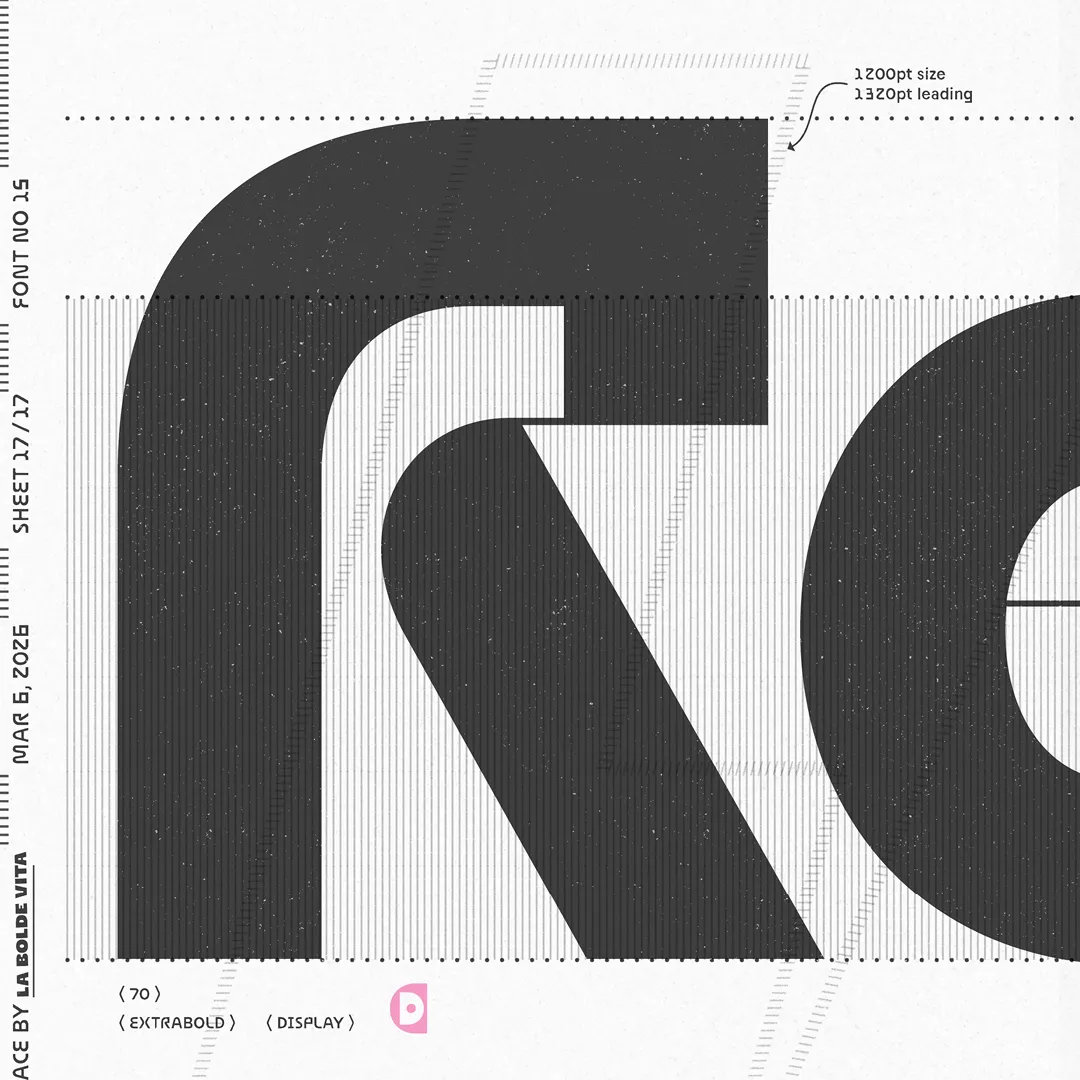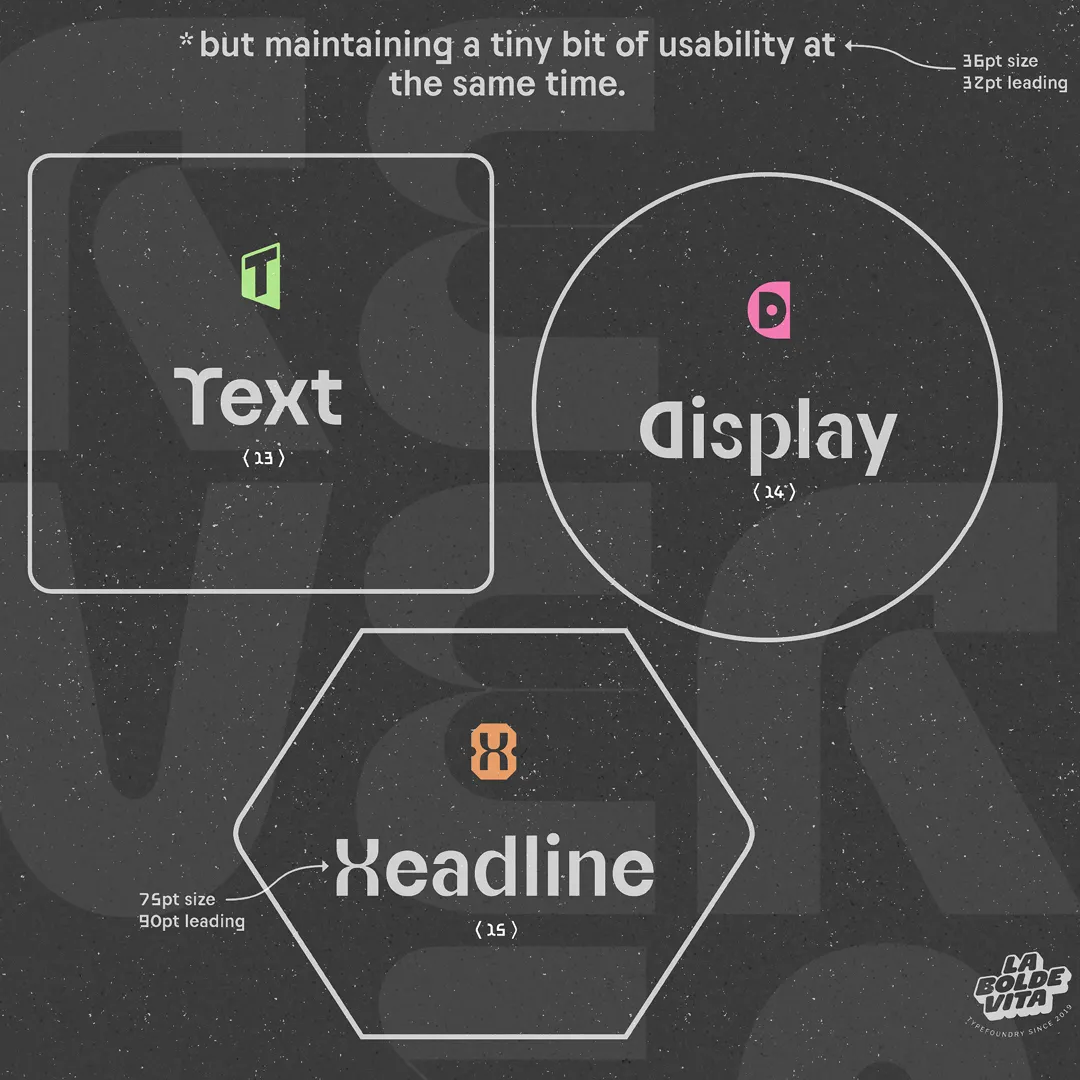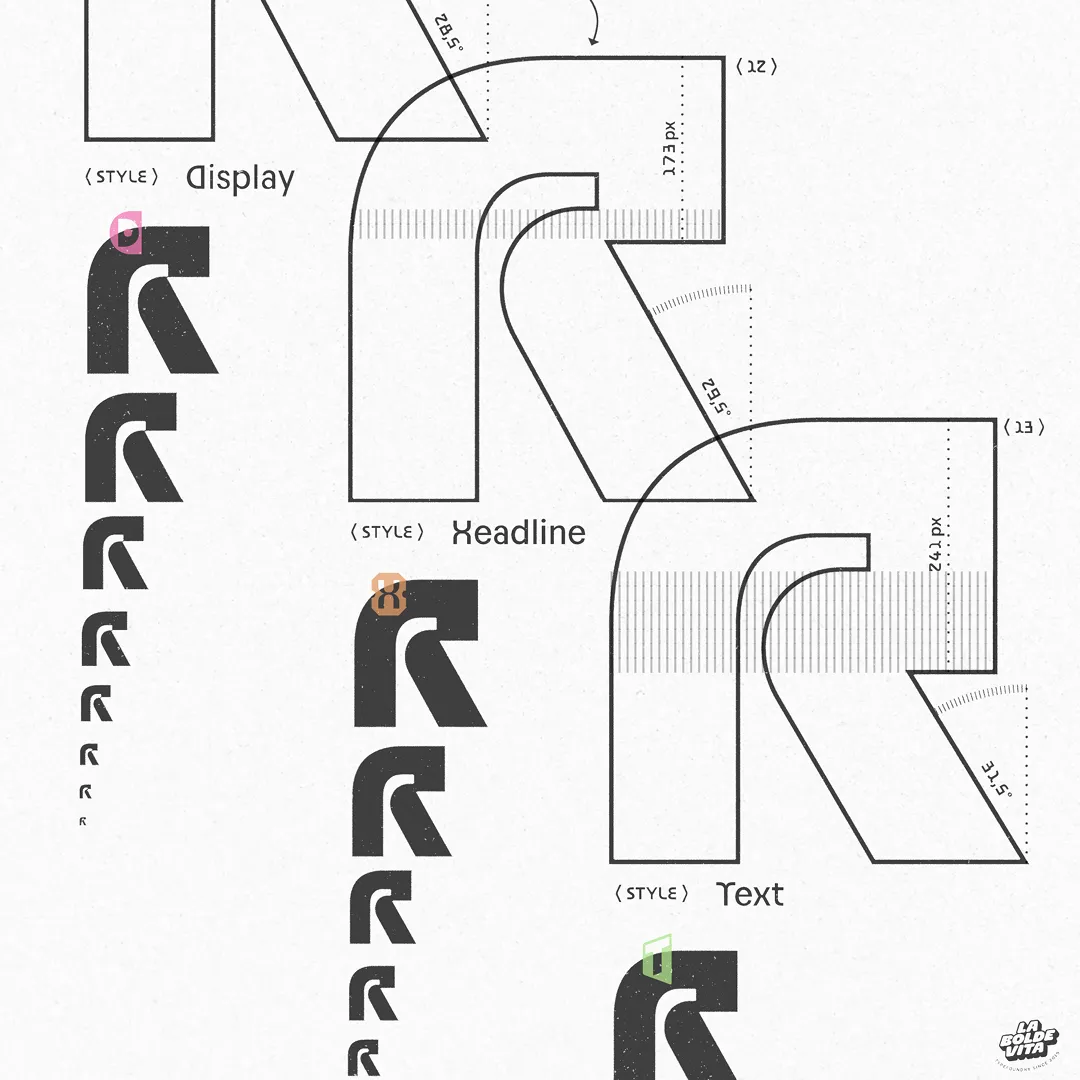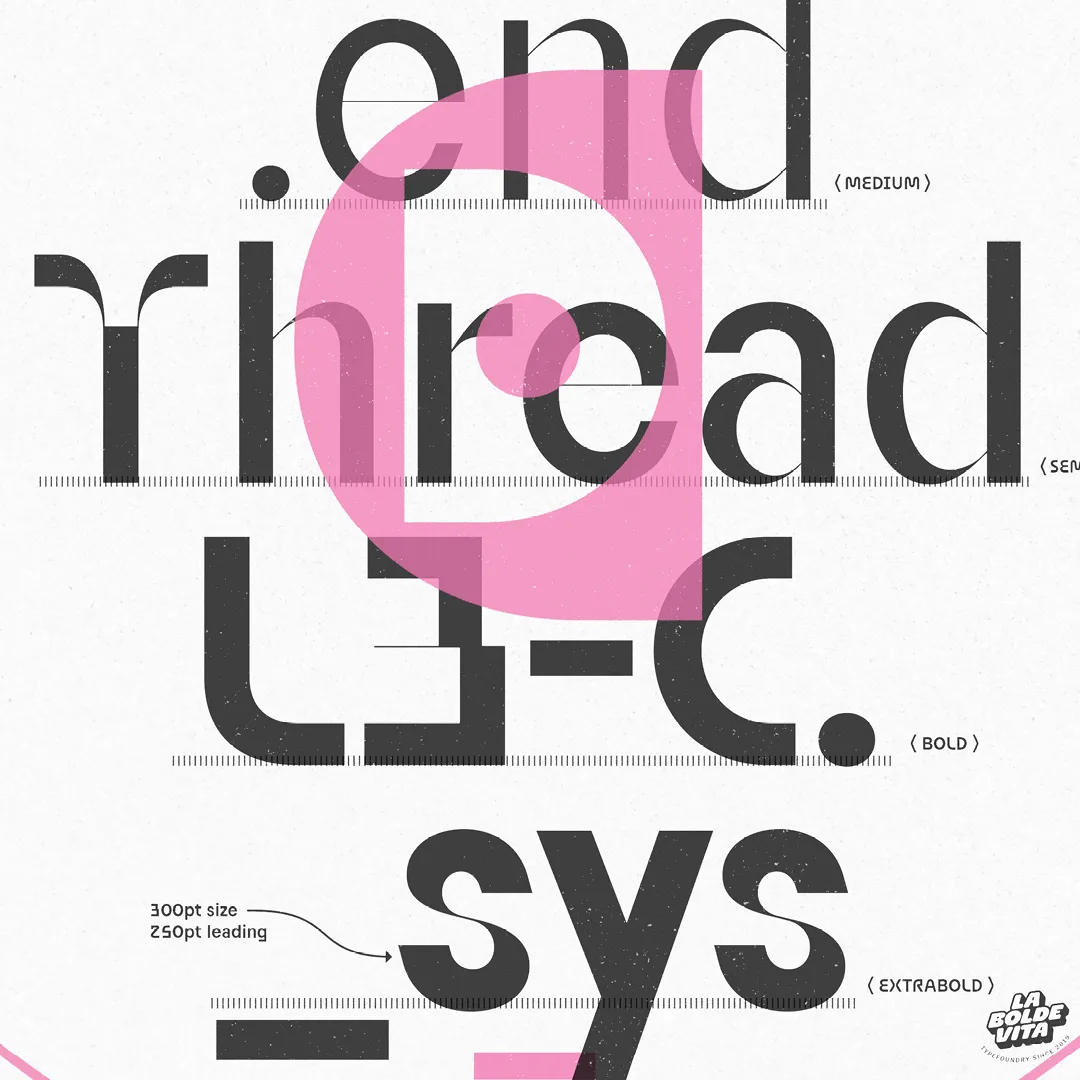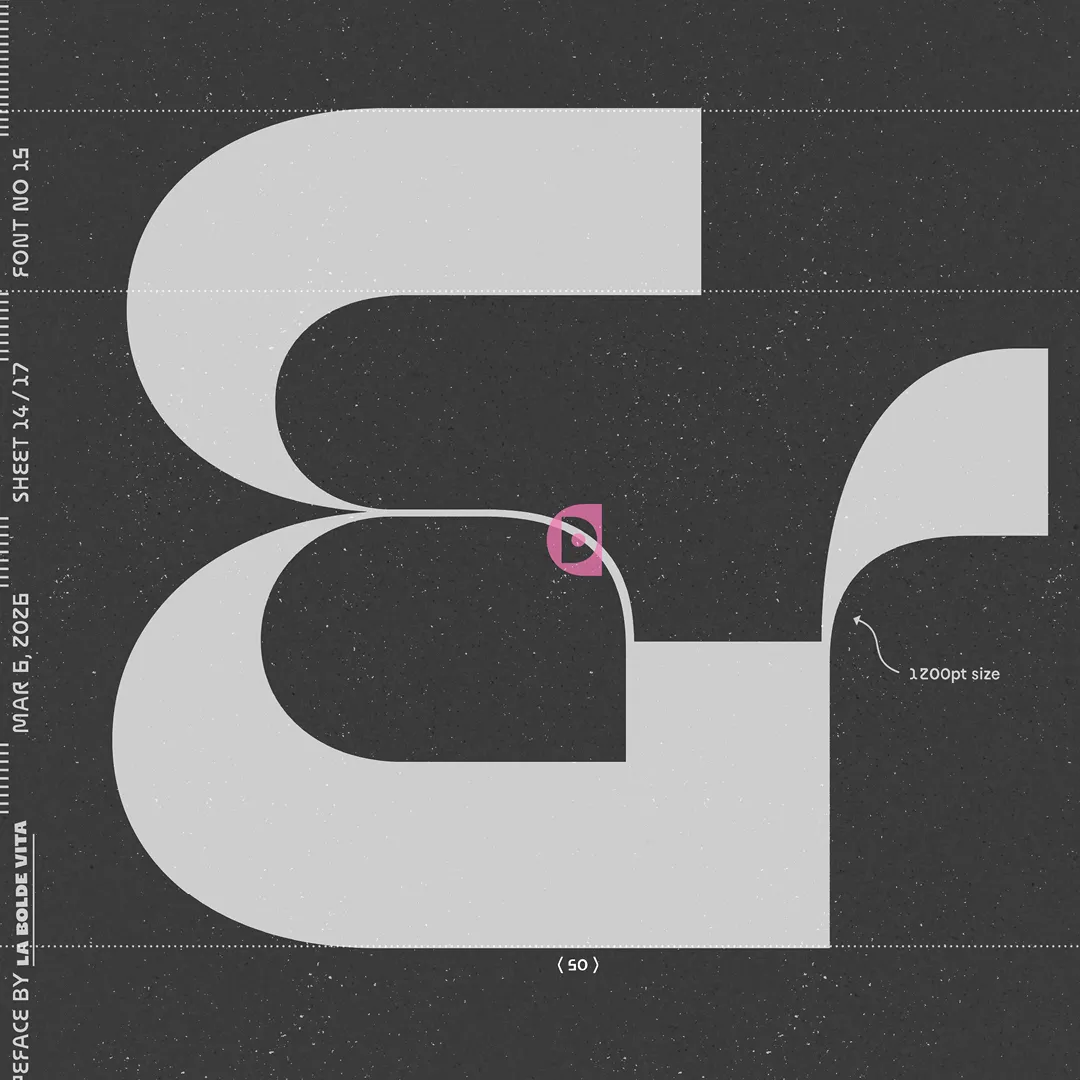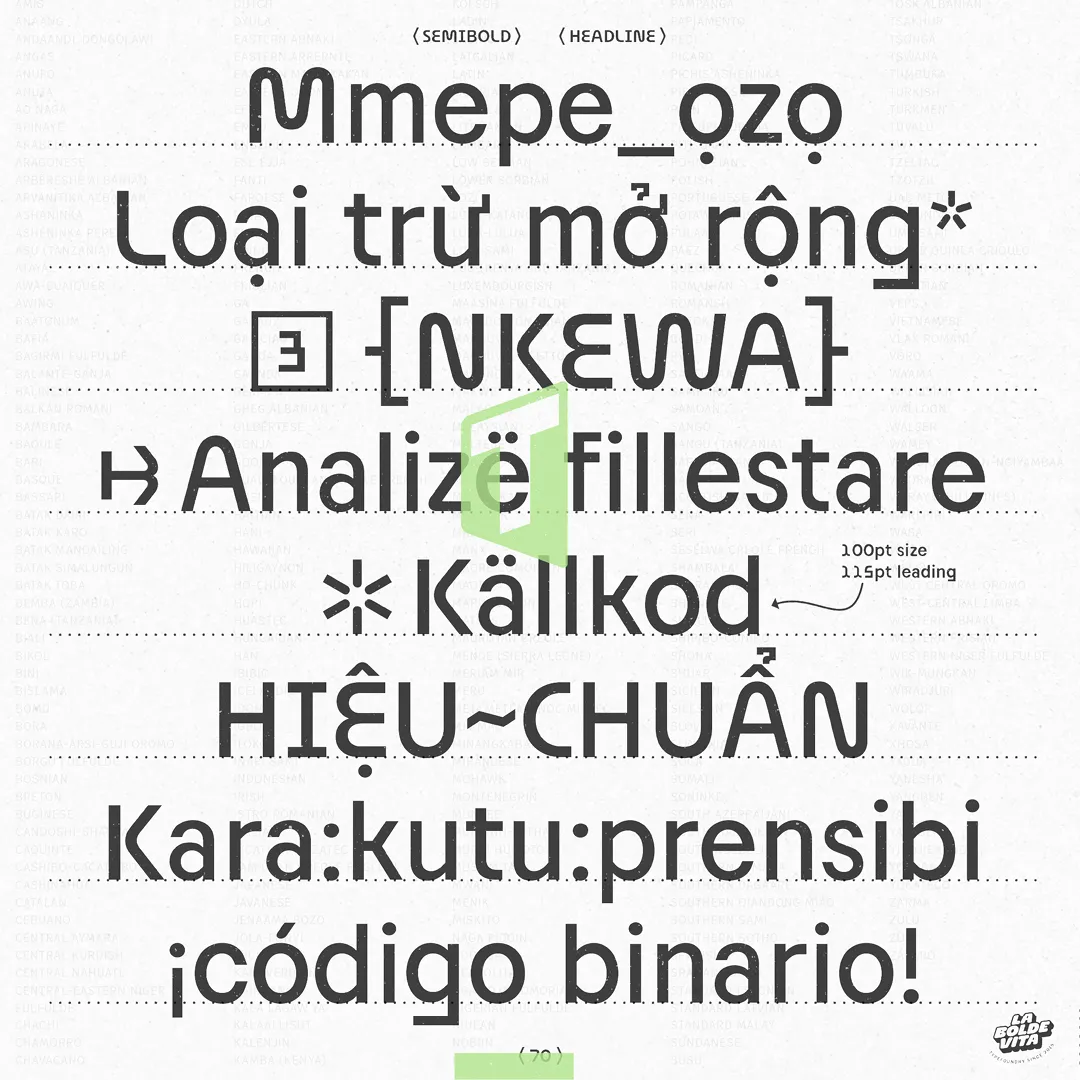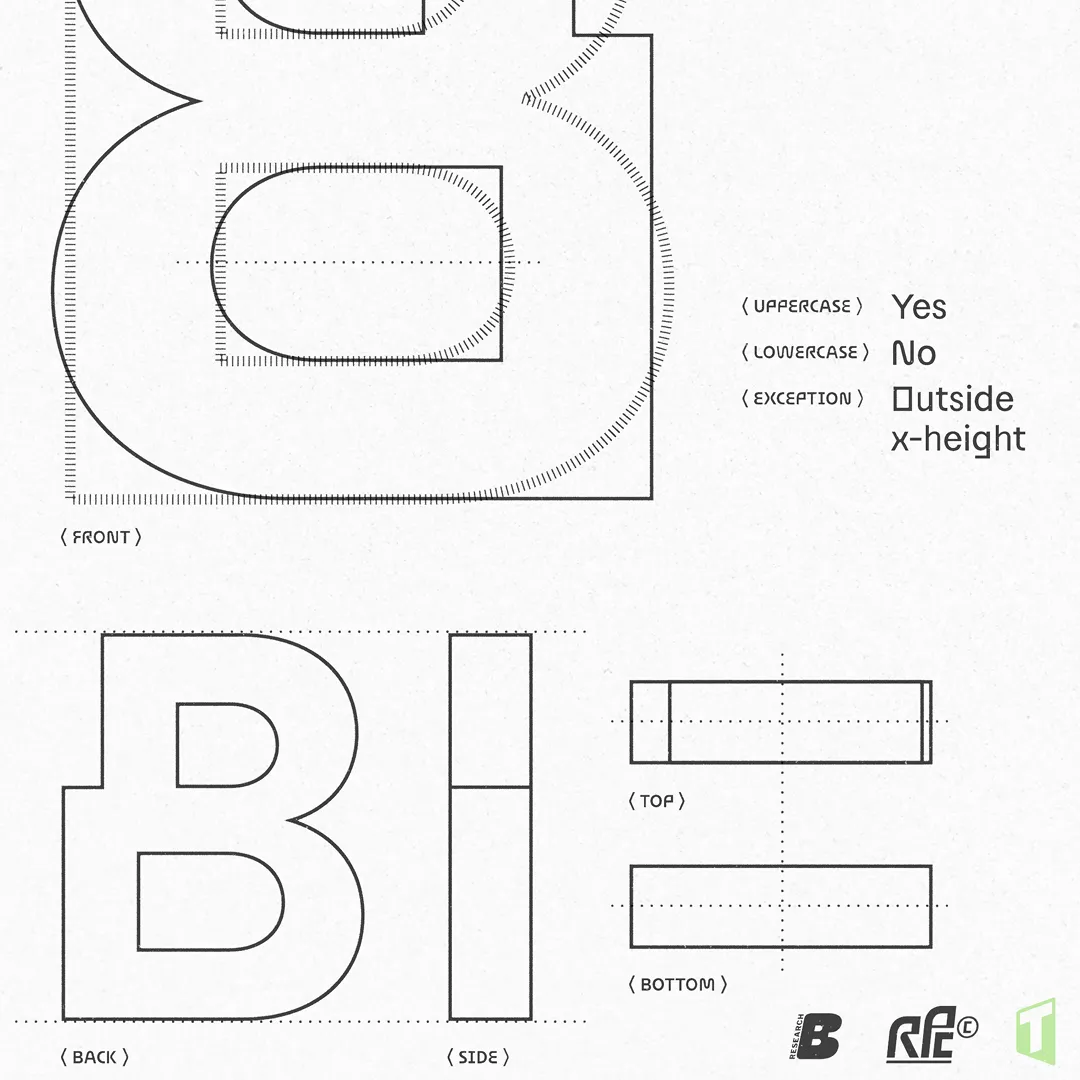
How many conceptual decisions can be incorporated into a typeface design without compromising its visual integrity? Reversa puts this to the test.
Starting with a monolinear sans serif with a technical influence, various attributes – some more prominent than others – were applied to different areas of the design. Uppercase letters are constructed with angular and rounded shapes reversed, while lowercase letters only tend toward more classical proportions and the display styles introduce an inverted contrast. The result is a wild typographic mixture that can be used for everything from eye-catching headlines to punchy body copy.
Despite its experimental nature, the Reversa family offers the features needed for practical everyday design work: Various styles in different weights and optical sizes, a broad language support for Latin languages, and comprehensive OpenType features, including an “easy readability” stylistic set.
Experimental Sans Serif
Released in 2026
6 weights
3 optical families
885 Glyphs
Latin AF
Reversa Text
Reversa Headline
Reversa Display
All styles of the Reversa family come with a handy “easy readability” stylistic set, replacing some hard-to-read letters with conventional letterforms. Besides that expect a comprehensive set of features for everyday use.
Easy Readability Shapes
Standard Ligatures
Contextual Alternates
Reversa comes with 885 glyphs – covering the Latin AF (including Latin Extended-A Unicode Range), a stylistic set for better readability, various figure styles and a range of symbols.
Thanks to the coverage of the Latin-Extended-A Unicode range, the Reversa family supports almost all modern Latin languages. Actually, completing our own Latin AF Characterset containing some additional accented glyphs, you can set text in 302 languages, including Vietnamese. If you still think your language isn’t supported, you can look up the full list below or in the specimen.